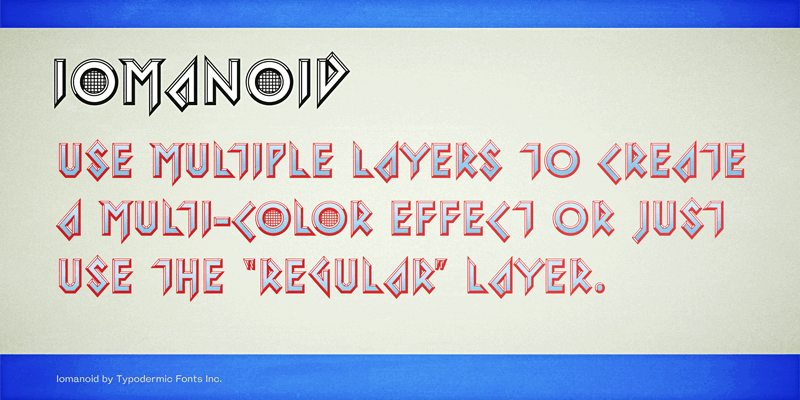
Iomanoid is a video game inspired, mid-1980’s techno font. Use the transparent regular style or stack the back, front and shine layers. These fonts include a license that allows free commercial use: sometimes referred to as a desktop license. This allows you to install the fonts on a computer and use them to create posters, web graphics, game graphics, t-shirts, videos, signs, logos and more. Read the license agreement for details. If you'd like to embed these fonts in an app, ebook, on the web or anything that's not covered by the desktop license agreement, visit the link below. You'll find distributors who offer different types of licenses or you can contact me for help. http://typodermicfonts.com/iomanoid/ |